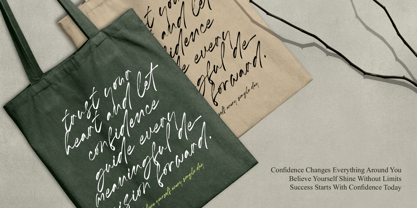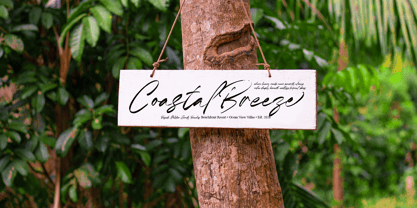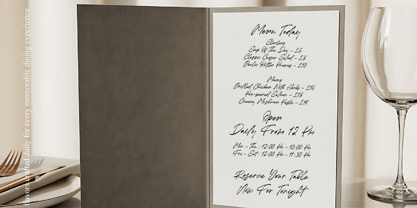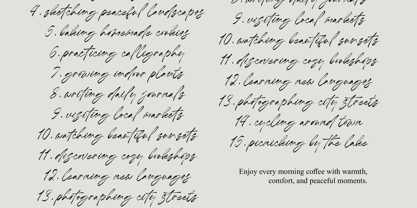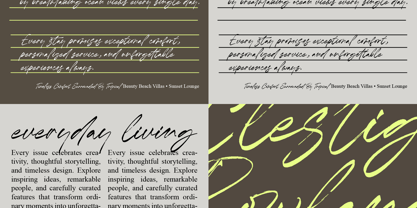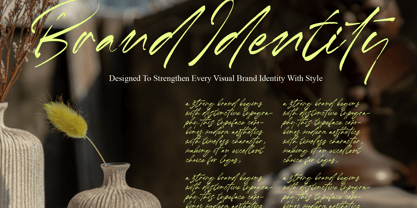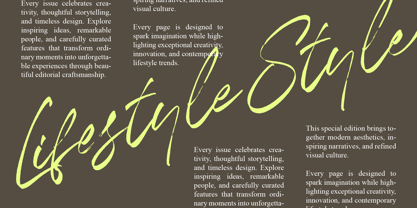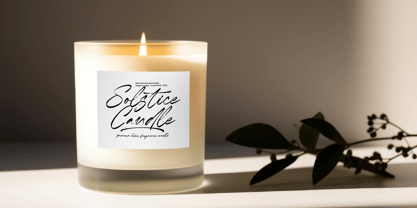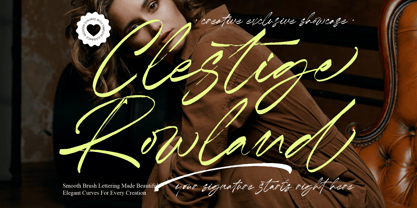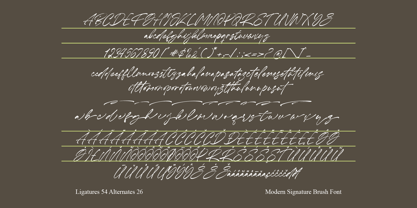
Clestige Rowland
The Clestige Rowland Font Family was designed by Heru Utama Putra and published by Letterena Studios. Clestige Rowland contains 2 styles and family package options. More about this family
Clestige Rowlandn - Modern Signature Brush Font
Elevate your creative vision with a typeface that embodies raw sophistication and authentic movement. The Clestige Rowlandn - Modern Signature Brush Font is a masterclass in expressive typography, featuring hand-drawn textures that bring a sense of human touch and artistic flair to any digital canvas. Its dynamic strokes and timeless elegance make it an essential tool for designers seeking to leave a distinctive mark on their work.